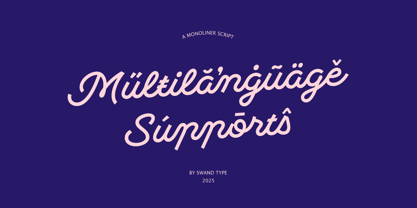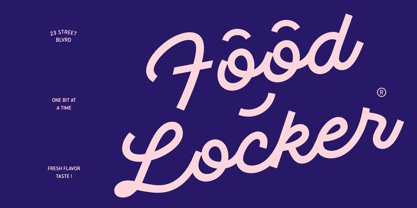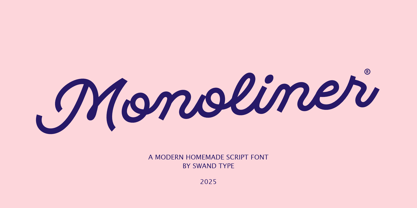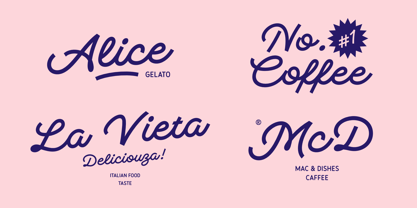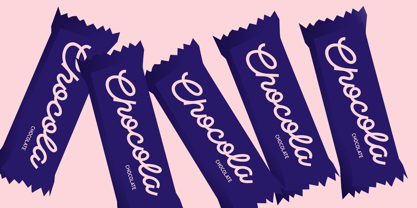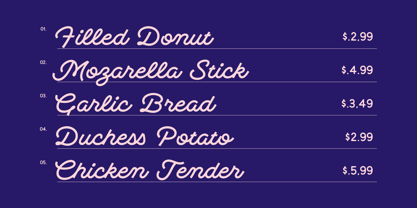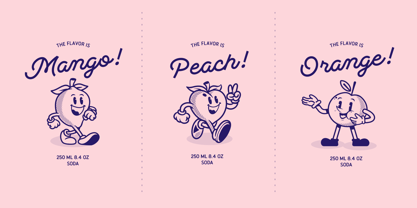
Monoliner
by Swand Type
The Monoliner Font Family was designed by Michola Putra Siswandi and published by Swand Type. Monoliner contains 1 styles. More about this family
Meet Monoliner Script Font. A monoline font designed by Michola Putra Siswandy (Swand Type). This font stands out for its clean, consistent strokes and meticulous attention to detail, making it an essential choice for modern typography enthusiasts.
Designers: Michola Putra Siswandi
Foundry: Swand Type